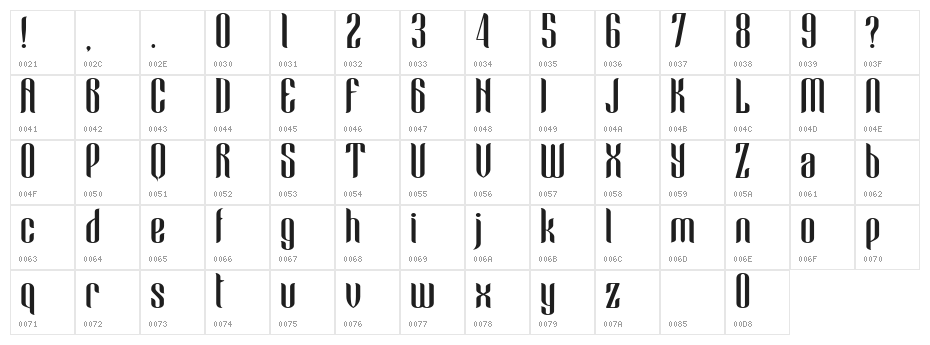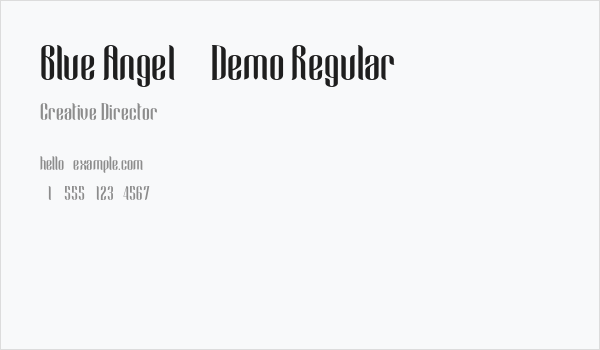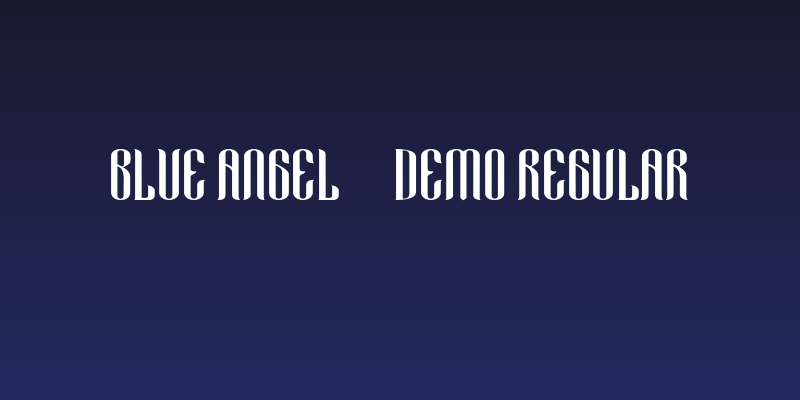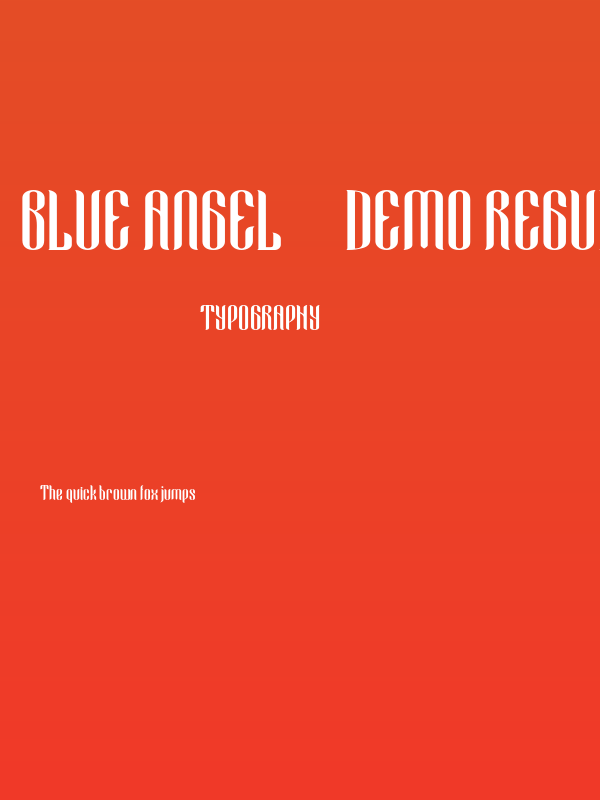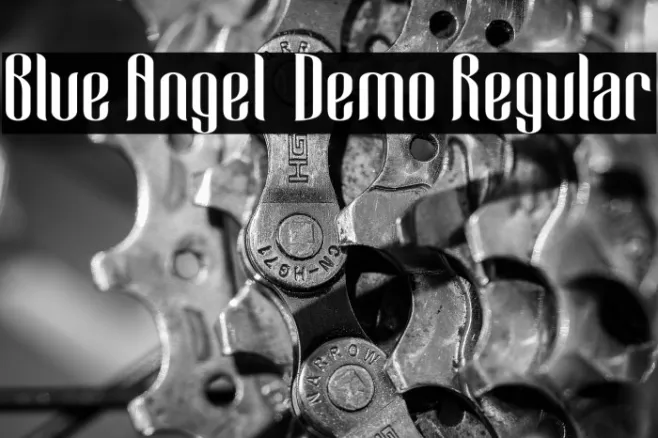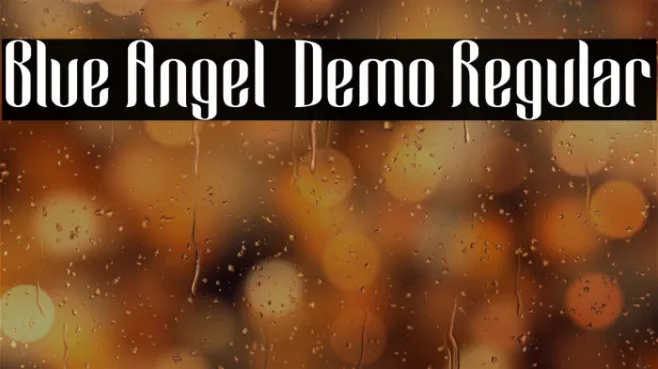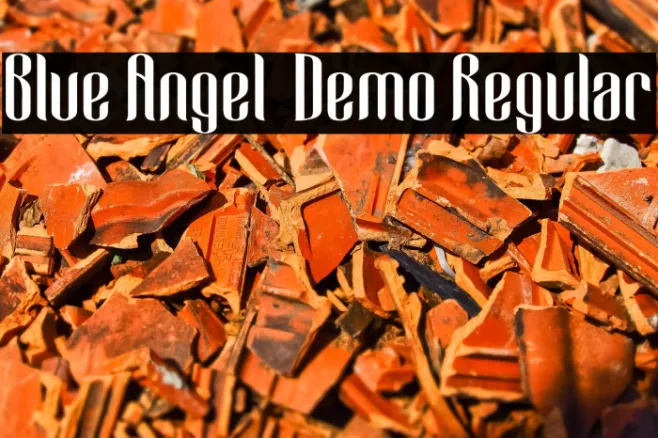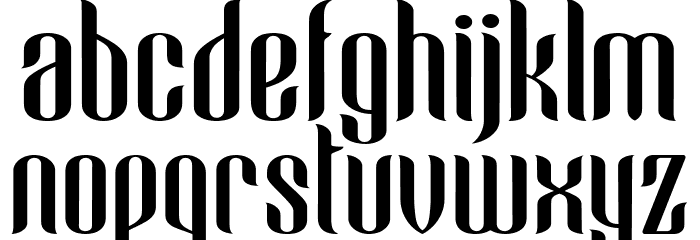
Blue Angel - Demo Regular Font
Blue Angel - Demo Regular Description
This font features a unique and bold design with elongated vertical strokes and sharp, angular edges. The uppercase letters exhibit a strong presence with their tall and narrow form, while the lowercase letters maintain a consistent style, offering a harmonious blend of elegance and modernity. The numbers follow the same aesthetic, ensuring uniformity across all characters. Special characters like the exclamation mark and question mark are designed with the same attention to detail, making them stand out. This font's distinct style is ideal for creating eye-catching headlines or logos that require a modern and sophisticated look.
| Proposed Projects | Ideal for branding, logo design, posters, and headlines that require a modern and striking appearance. |